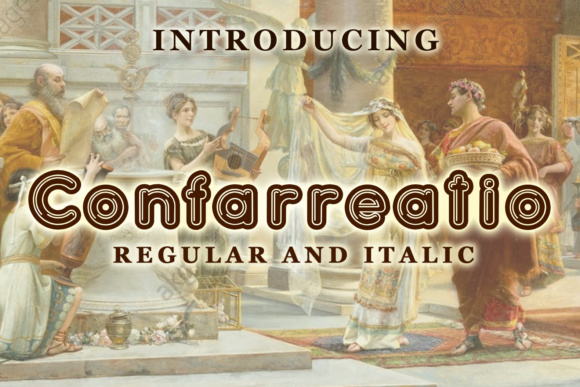
Confarreatio Font
Prepare to be captivated by the whimsical charm of Confarreatio, an extraordinary bubbly font that will transform your creative endeavors into masterpieces. Crafted by the talented vladimirnikolic, this enchanting typeface boasts a captivating character that dances across the page, evoking joy and delight.
Immerse yourself in the world of Confarreatio, where every letter is a work of art. Its playful curves and effervescent spirit will breathe life into your designs, making them impossible to resist. Whether you're crafting eye-catching headlines, designing vibrant flyers, or creating unique prints, Confarreatio will effortlessly elevate your creations, leaving an unforgettable impression on all who encounter them.
Indulge in the versatility of Confarreatio, a font that adapts seamlessly to a myriad of styles and themes. Its regular and italic variants provide endless possibilities for creative expression, allowing you to tailor your designs to perfection. Let Confarreatio be the enchanting touch that transforms your vision into a captivating reality.
With Confarreatio, you're not just downloading a font – you're embarking on a journey of creativity. Its bubbly personality will spark inspiration, igniting your imagination and propelling your designs to new heights. Embrace the magic of Confarreatio and let your creativity soar.